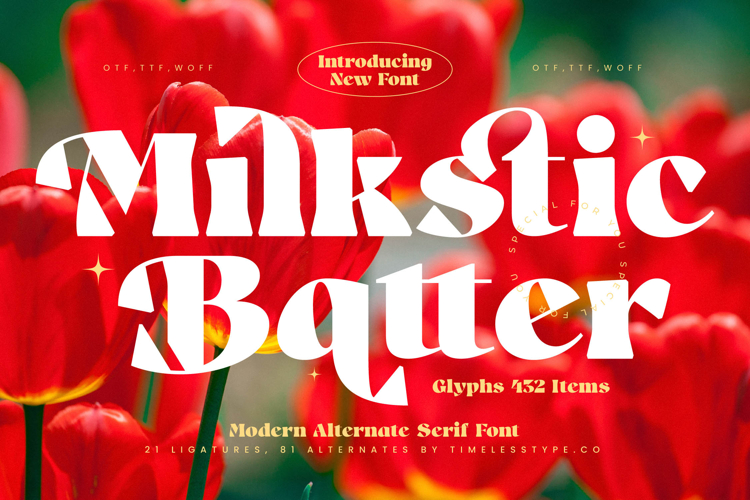
Milkstic Batter - Modern Alternate Serif Font
Milkstic Batter is a modern alternate serif font that blends bold elegance with expressive artistry. Its high-contrast strokes, decorative curves, and stylish alternates create a typeface that feels powerful yet refined, perfect for projects that want to stand out with both sophistication and creativity. With 21 ligatures, 81 alternates, and 432 total glyphs, Milkstic Batter gives designers extensive flexibility to craft unique, dynamic, and captivating typography across various design needs.
This font excels in headline typography, where its bold proportions and distinctive alternates immediately capture attention on posters, editorials, and banners. In branding and logo design, Milkstic Batter communicates exclusivity and flair, making it an ideal choice for fashion labels, luxury brands, creative studios, and boutique businesses that want to project a premium identity. Its strong decorative presence also makes it ideal for packaging design, particularly for wine, gourmet goods, cosmetics, and artisanal products where elegance and memorability are key.
Milkstic Batter shines in advertising campaigns, event promotions, and social media graphics, where its expressive alternates and ligatures add artistry and individuality to every composition. On digital platforms, it ensures clarity while lending a polished editorial look, making it suitable for premium content creation and storytelling.
Its versatility extends to wedding invitations, book covers, certificates, and cultural projects, where timeless refinement enhances the design narrative. With multilingual support, Milkstic Batter adapts seamlessly for international projects, making it a global design solution.
Ultimately, Milkstic Batter is more than a serif font—it is a statement of elegance, boldness, and artistic freedom. Whether used for headlines, branding, packaging, or digital content, it guarantees a stylish and unforgettable typographic experience.